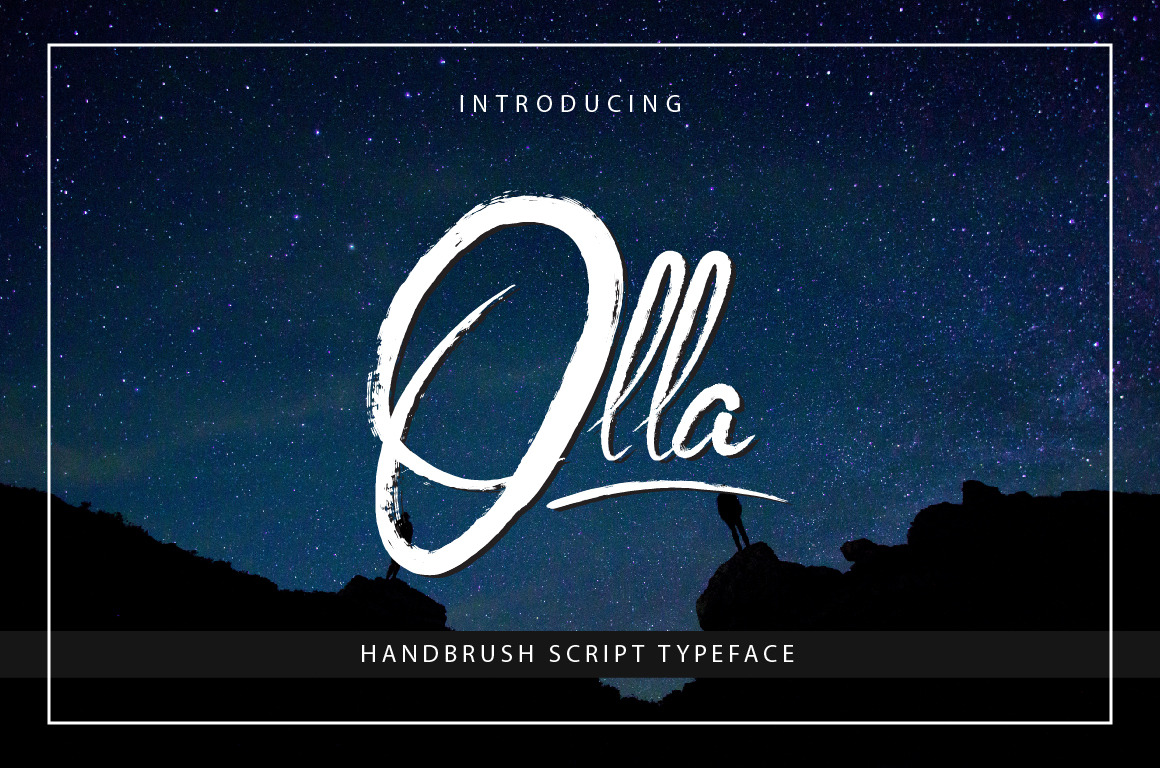
Olla Typeface
Olla Typeface a Handbrushed script signature style
Olla Typeface comes with upper and lowercase characters, punctuation glyphs, numerals, and also bonuses of 26 Swashes. it suites, for signature, logo marks, Posters, Packaging Design, and any other quotes design. Hope you guys like it :)